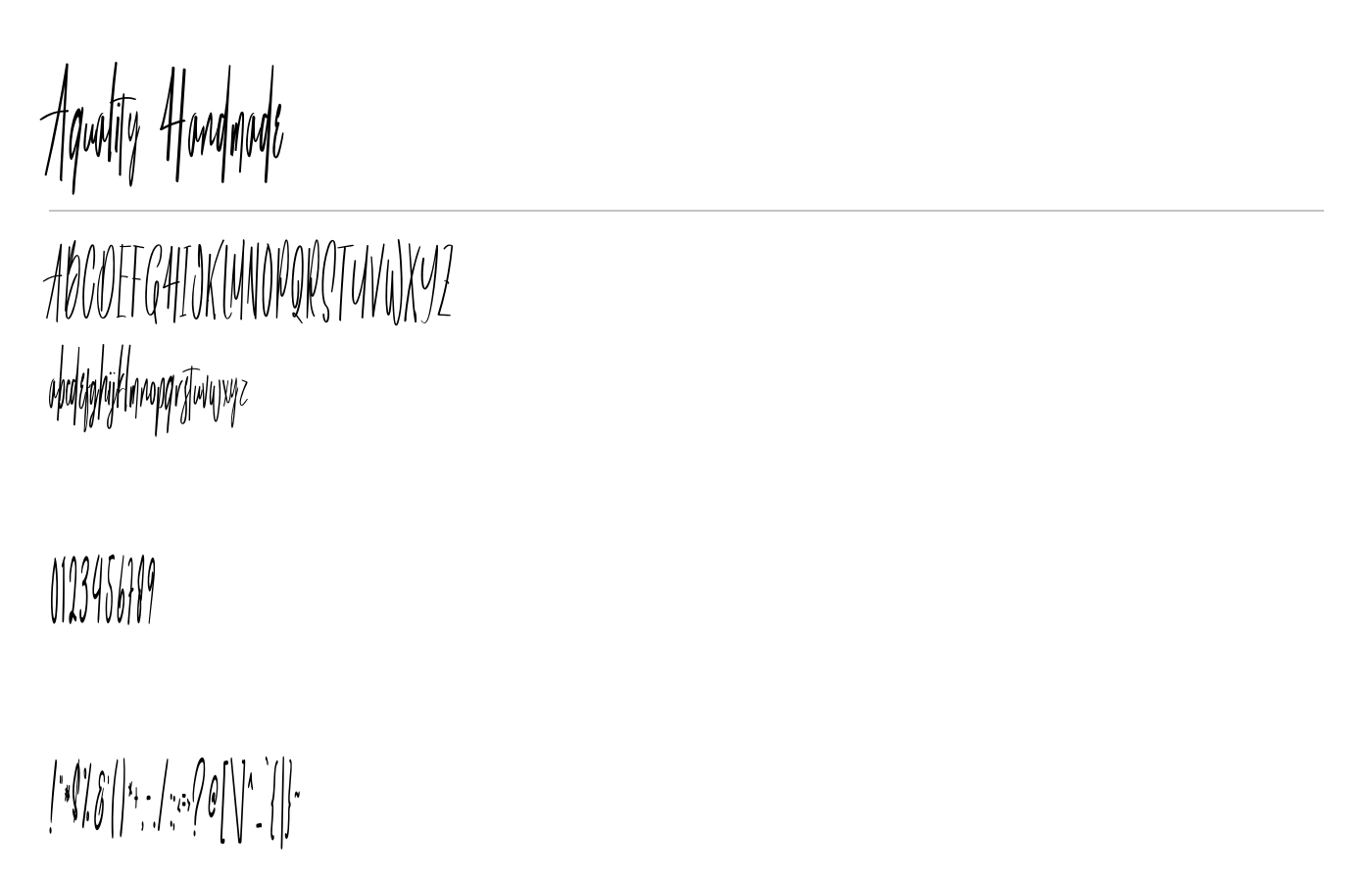
Aquality Handmade is a narrow, tall script font that mimics delicate, hand-drawn calligraphy with an elegant yet quirky style. Its thin strokes and slightly irregular shapes give it a personal, artistic feel, making it perfect for creative branding, invitations, and expressive headlines that want to convey uniqueness and charm.
Aquality Handmade Font
About Aquality Handmade Font